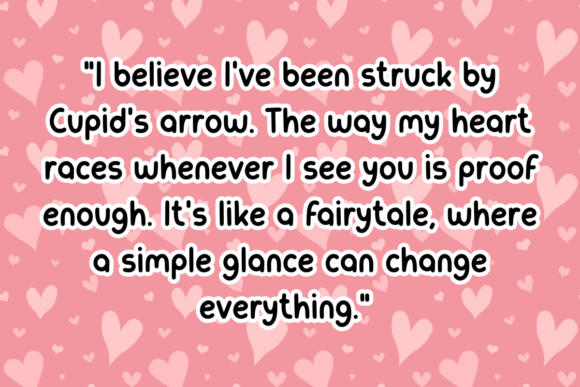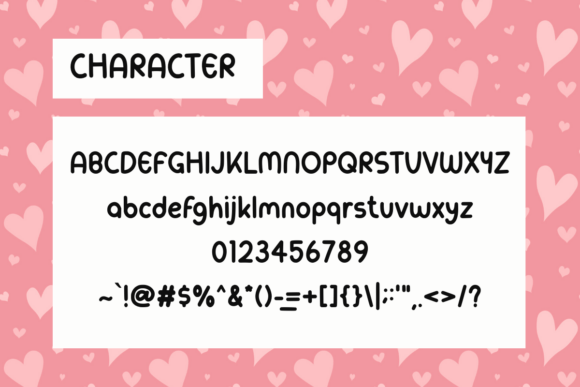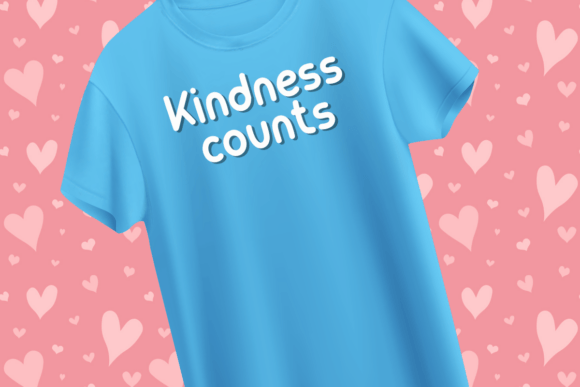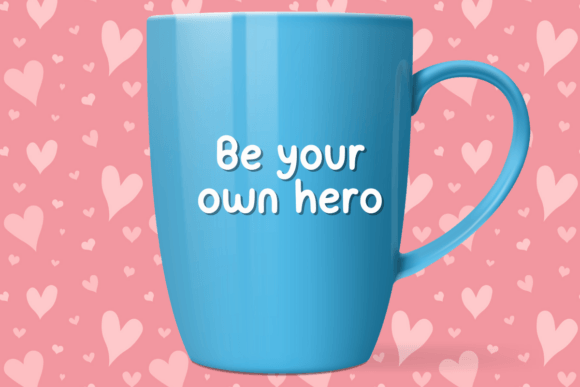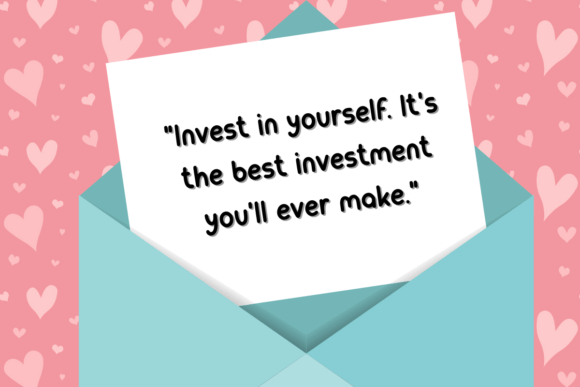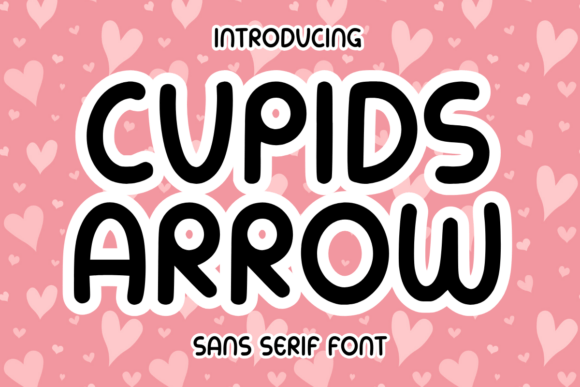
Cupids Arrow Font: The Perfect Choice for Designers and Crafters
Are you looking for a font that can add a touch of fun and playfulness to your designs? Look no further than Cupids Arrow Font! This sans serif font is perfect for creating eye-catching logos, branding, and quotes that will leave a lasting impression on your audience. In this article, we’ll take a closer look at Cupids Arrow Font and explore its features, benefits, and uses.
What is Cupids Arrow Font?
Cupids Arrow Font is a fun and modern sans serif font that is designed to add a touch of whimsy to your designs. Every letter in this font has a unique and beautiful touch, which makes it perfect for creating visually appealing designs. The font is clean, crisp, and easy to read, making it suitable for a wide range of design projects.
Key Features of Cupids Arrow Font
• Unique and Beautiful Touch: Every letter in Cupids Arrow Font has a unique and beautiful touch that sets it apart from other fonts.
• Fun and Playful: This font is perfect for designs that require a touch of fun and playfulness.
• Sans Serif: Cupids Arrow Font is a sans serif font, which makes it clean, crisp, and easy to read.
• Easily Readable: The font is designed to be easily readable, making it perfect for body text and headings.
Benefits of Using Cupids Arrow Font
There are many benefits to using Cupids Arrow Font in your designs. Here are a few:
• Stand Out Designs: Cupids Arrow Font is perfect for creating eye-catching logos, branding, and quotes that will stand out from the crowd.
• Versatile: This font is versatile and can be used for a wide range of design projects, from logos and branding to social media graphics and more.
• Unique Look: The font’s unique and beautiful touch will add a touch of personality to your designs.
Uses of Cupids Arrow Font
Cupids Arrow Font is perfect for a wide range of design projects, including:
• Logo Design: Create eye-catching logos that will leave a lasting impression on your audience.
• Branding: Use Cupids Arrow Font to create consistent branding across all your marketing materials.
• Quotes and Posters: Create visually appealing quotes and posters that will grab attention.
• Social Media Graphics: Use Cupids Arrow Font to create engaging social media graphics that will stand out from the crowd.
Tips for Using Cupids Arrow Font
Here are a few tips for using Cupids Arrow Font:
• Use it Sparingly: Use Cupids Arrow Font sparingly to add emphasis to your designs.
• Pair it with Other Fonts: Pair Cupids Arrow Font with other fonts to create a unique and visually appealing design.
• Experiment with Colors: Experiment with different colors to find the perfect combination for your design.
Cupids Arrow Font is a fun and modern sans serif font that is perfect for designers and crafters. Its unique and beautiful touch makes it perfect for creating eye-catching logos, branding, and quotes. With its versatility, ease of use, and unique look, Cupids Arrow Font is a great addition to any design project. So why not give it a try and see how it can elevate your designs?